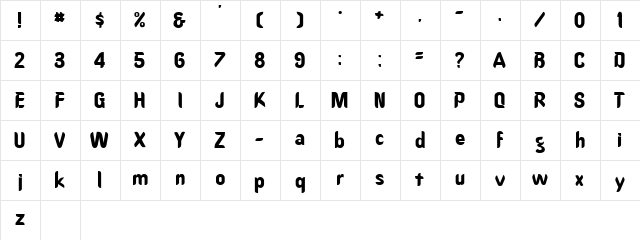
Core 14 Regular
Design Context for Core 14 Typeface
Core 14 offers clean, dependable letterforms without strong stylistic allegiance, making it a practical choice for designers who need flexibility.
Pro Tip: Use Core 14 in both headline and body roles to test its range before committing to a single application.